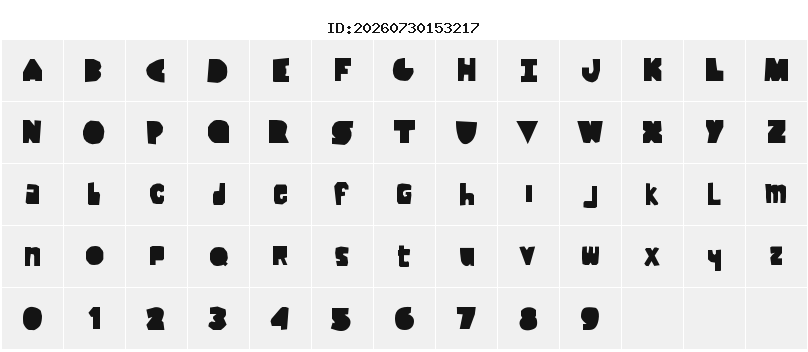
• Font Name: Lack-of-luck
• Designer: Omar Mogollón
About Lack-of-luck.ttf
Lack-of-luck.ttf is a modern, elegant sans-serif font designed for ultimate readability and visual harmony. Perfect for branding, headlines, web design, and print materials.